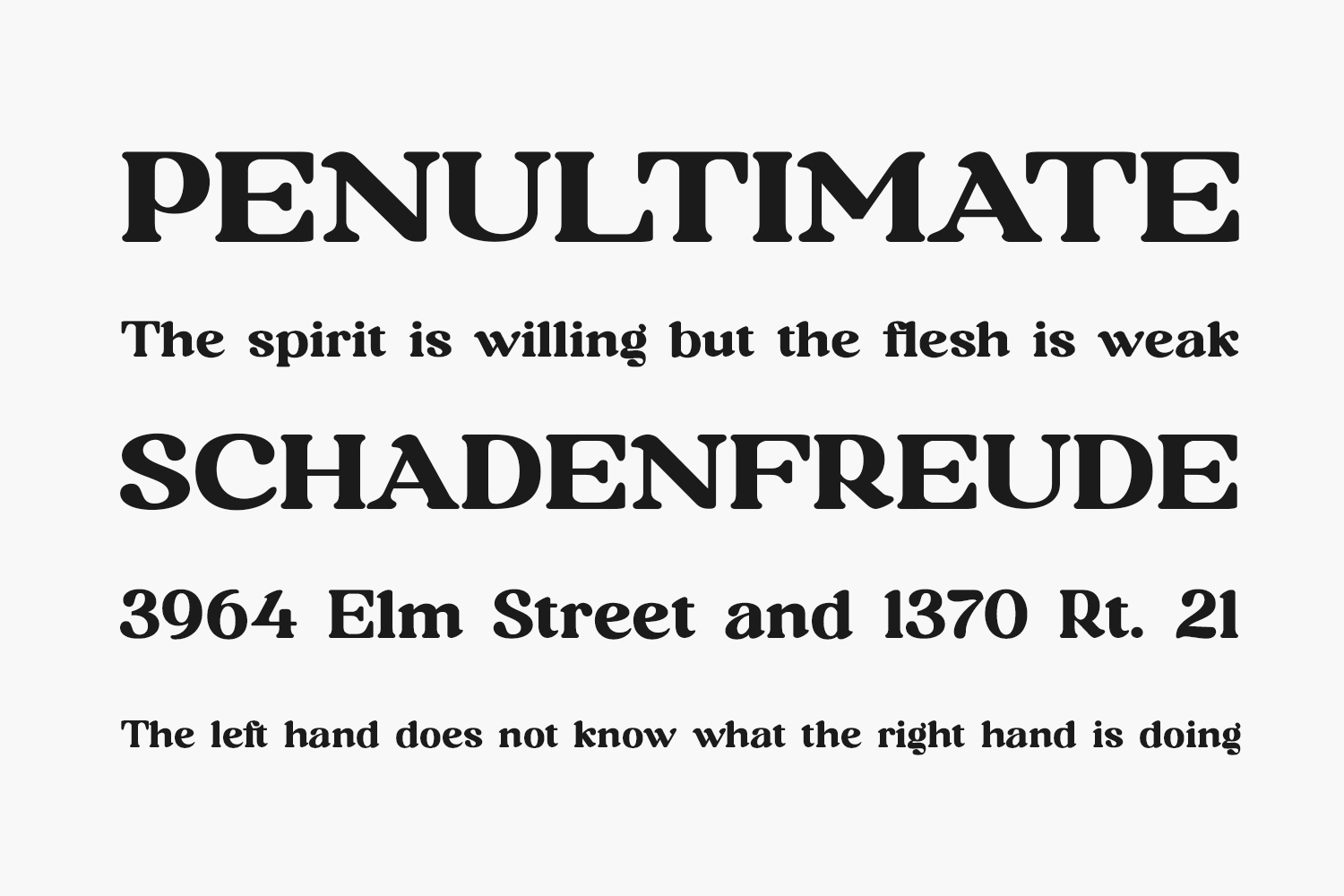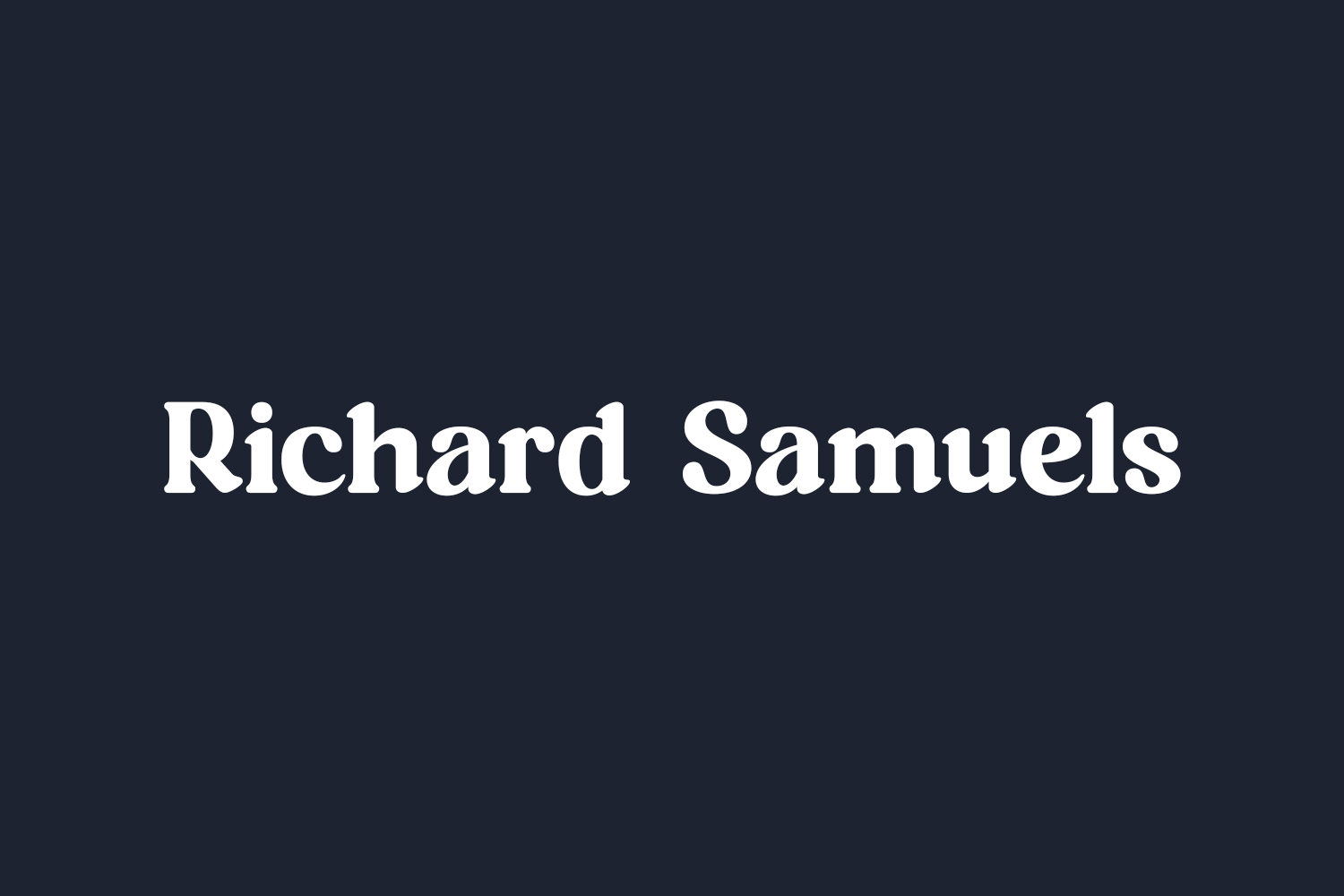
Richard Samuels Free Font is a serif modern and classic typeface that his own unique style & modern look. This typeface is perfect for an elegant & luxury logo, book or movie title design, fashion brand, magazine, clothes, lettering, quotes, and so much more. Richard Samuels Free Font is free for personal use only. Please purchase the full version for commercial use.